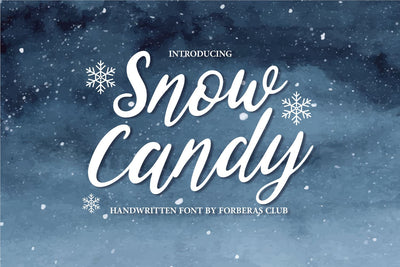
Snow Candy
Introducing Snow Candy Font by Forberas Club
Snow Candy is a Modern Handwritten Font. Snow Candy is perfect for book cover, product packaging, branding project, megazine, social media, christmas party fonts, or just used to express words above the background. This font includes TTF and OTF, This font also multilingual support.